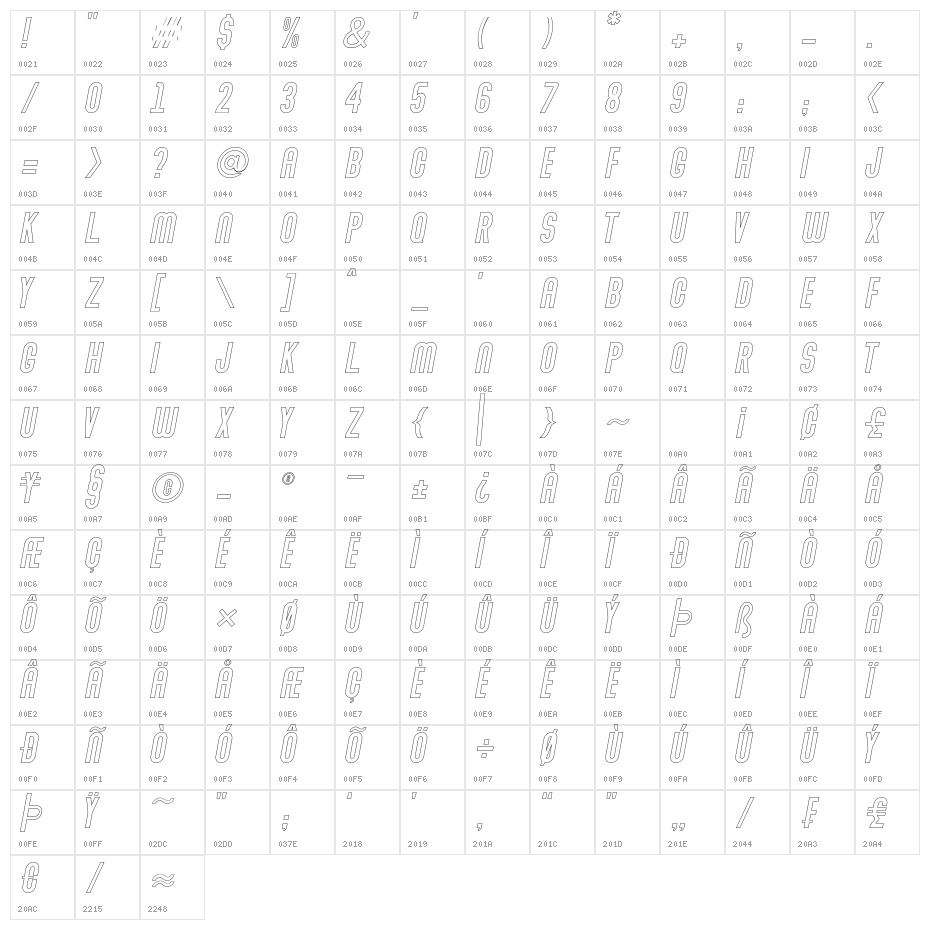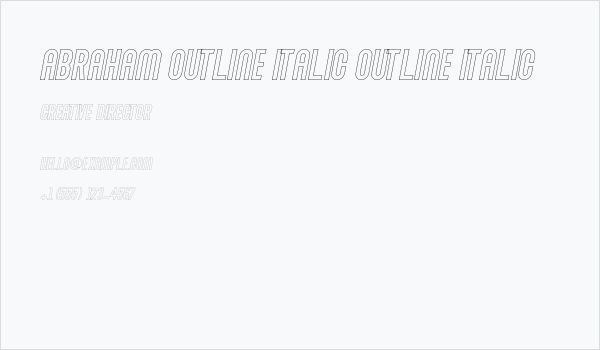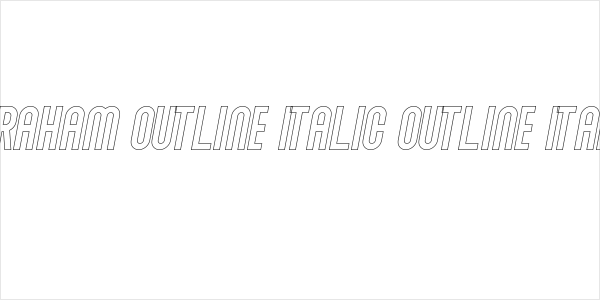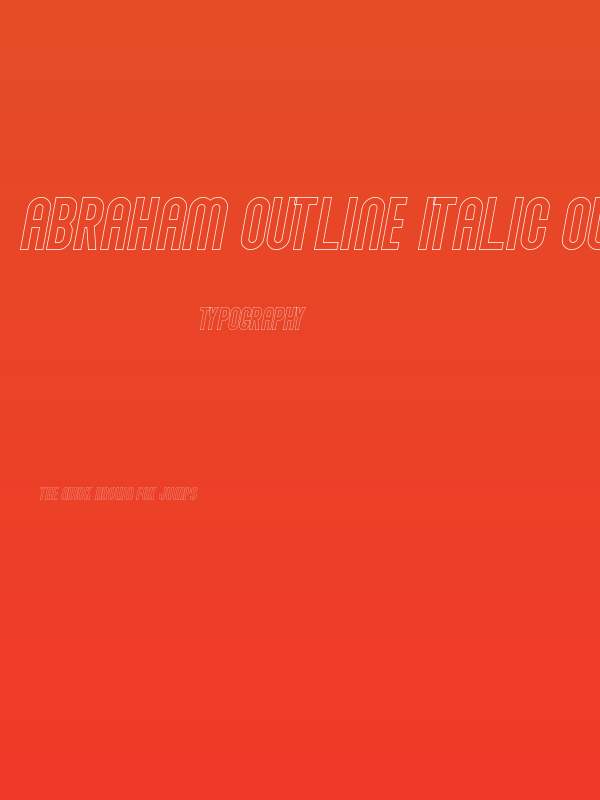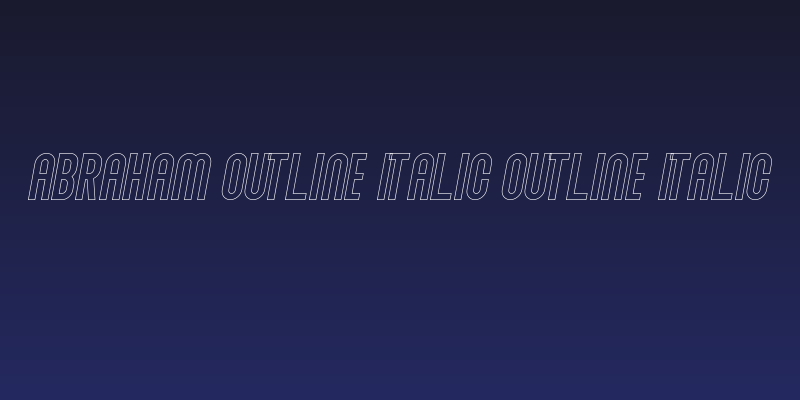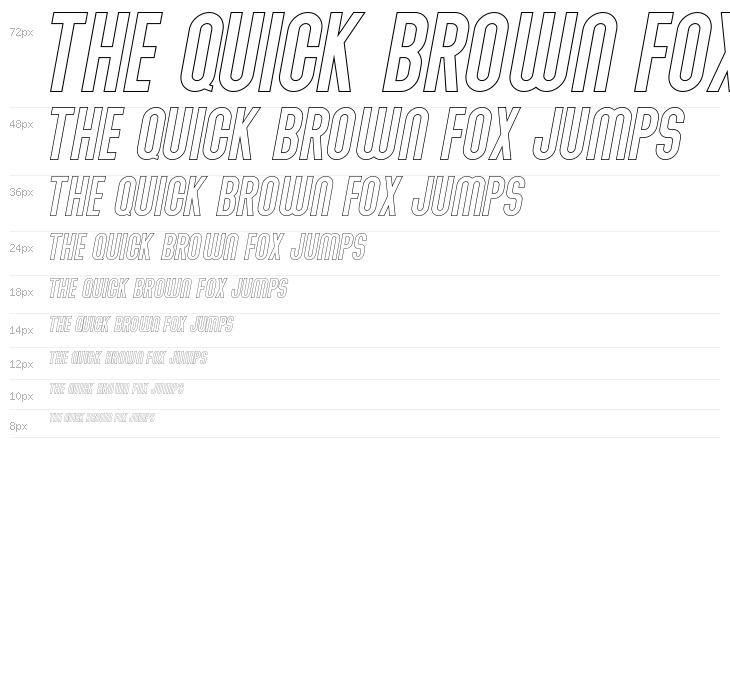
Abraham Outline Italic Font
Abraham Outline Italic Description
This font features a modern outline style with a distinct italic slant, giving it a dynamic and forward-moving appearance. The characters are uppercase and lowercase letters, along with numbers and a variety of special symbols. The outline design creates a hollow effect, making it suitable for overlaying on various backgrounds. The strokes are consistent in width, providing a uniform look across all characters. This font's clean lines and contemporary style make it versatile for various design applications.
| Proposed Projects | Ideal for branding, posters, headlines, and digital media where a modern and stylish look is desired. |